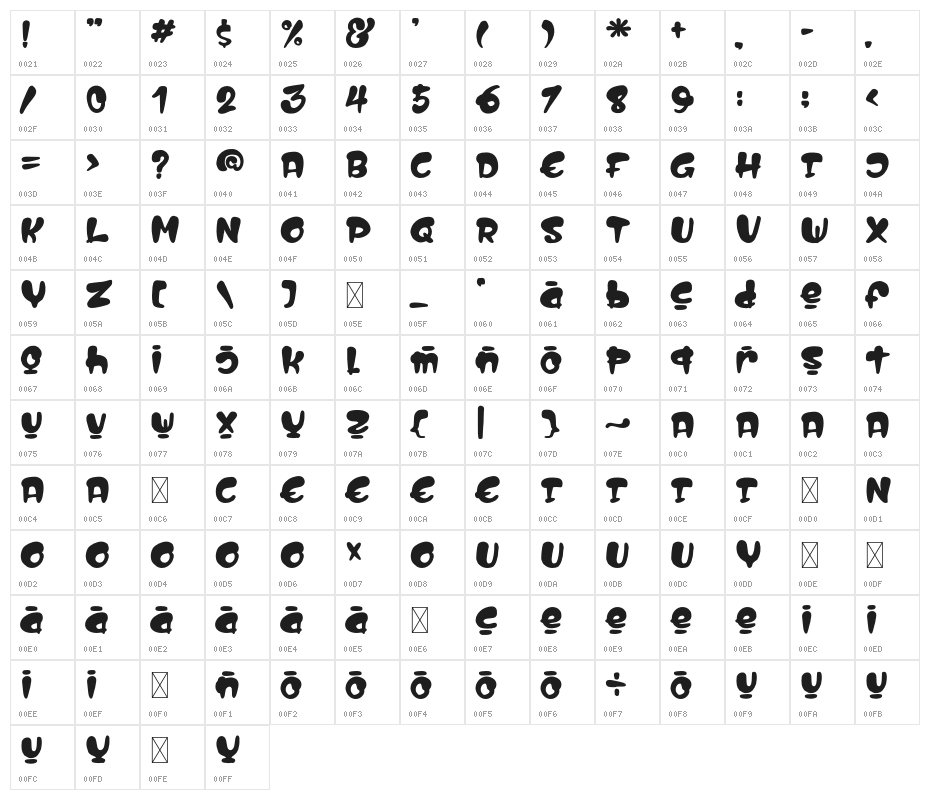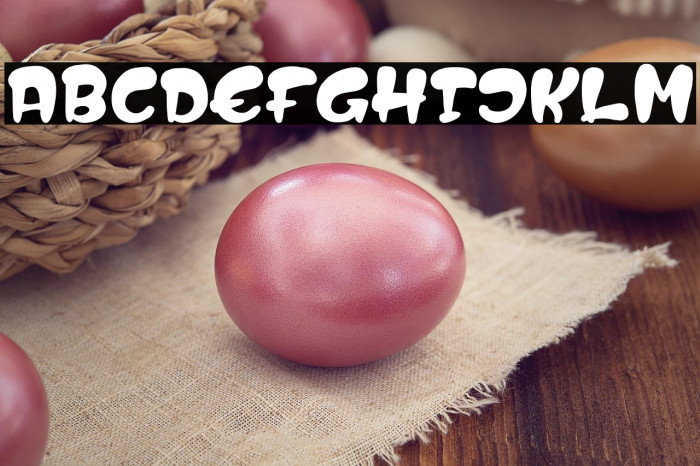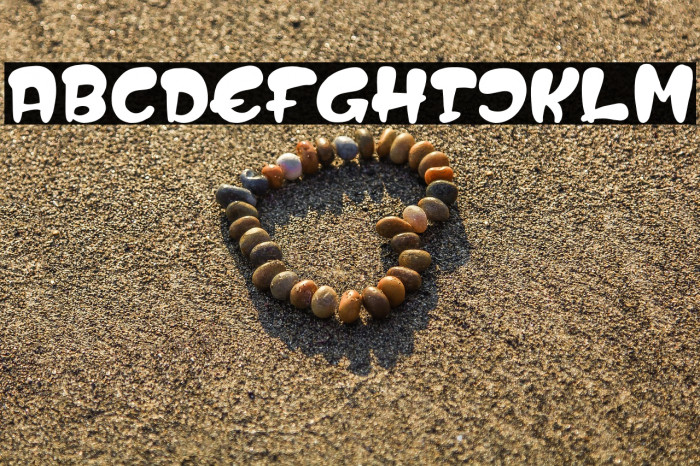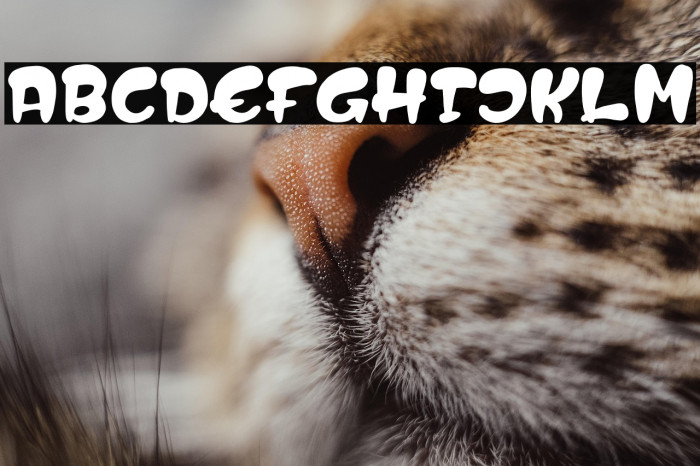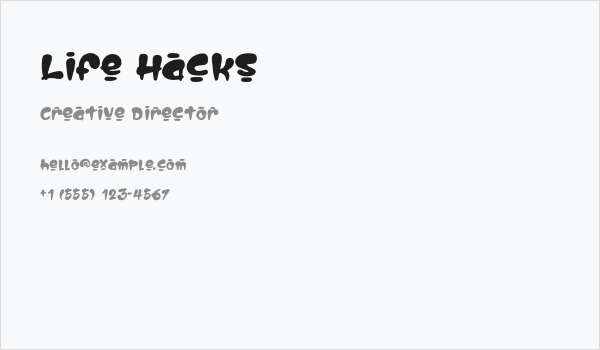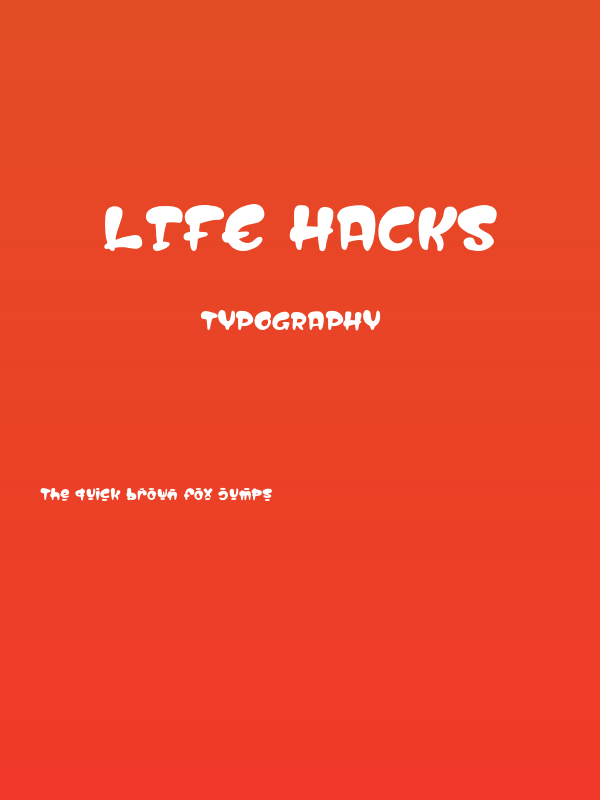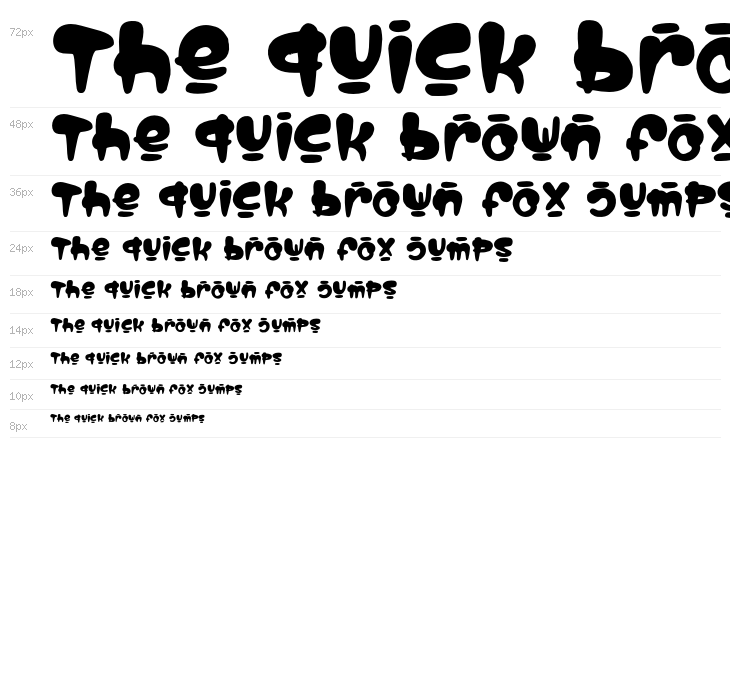
Life Hacks Font
Life Hacks Description
This playful and bold font features a unique, bubbly design with rounded edges and a thick, substantial appearance. The characters are slightly irregular, giving them a hand-drawn, organic feel. The uppercase and lowercase letters maintain a consistent style, with the lowercase letters being slightly smaller and more compact. Numbers and special characters are designed to match the playful aesthetic, making them stand out with their bold presence. The font's overall look is whimsical and fun, perfect for projects that require a touch of creativity and personality.